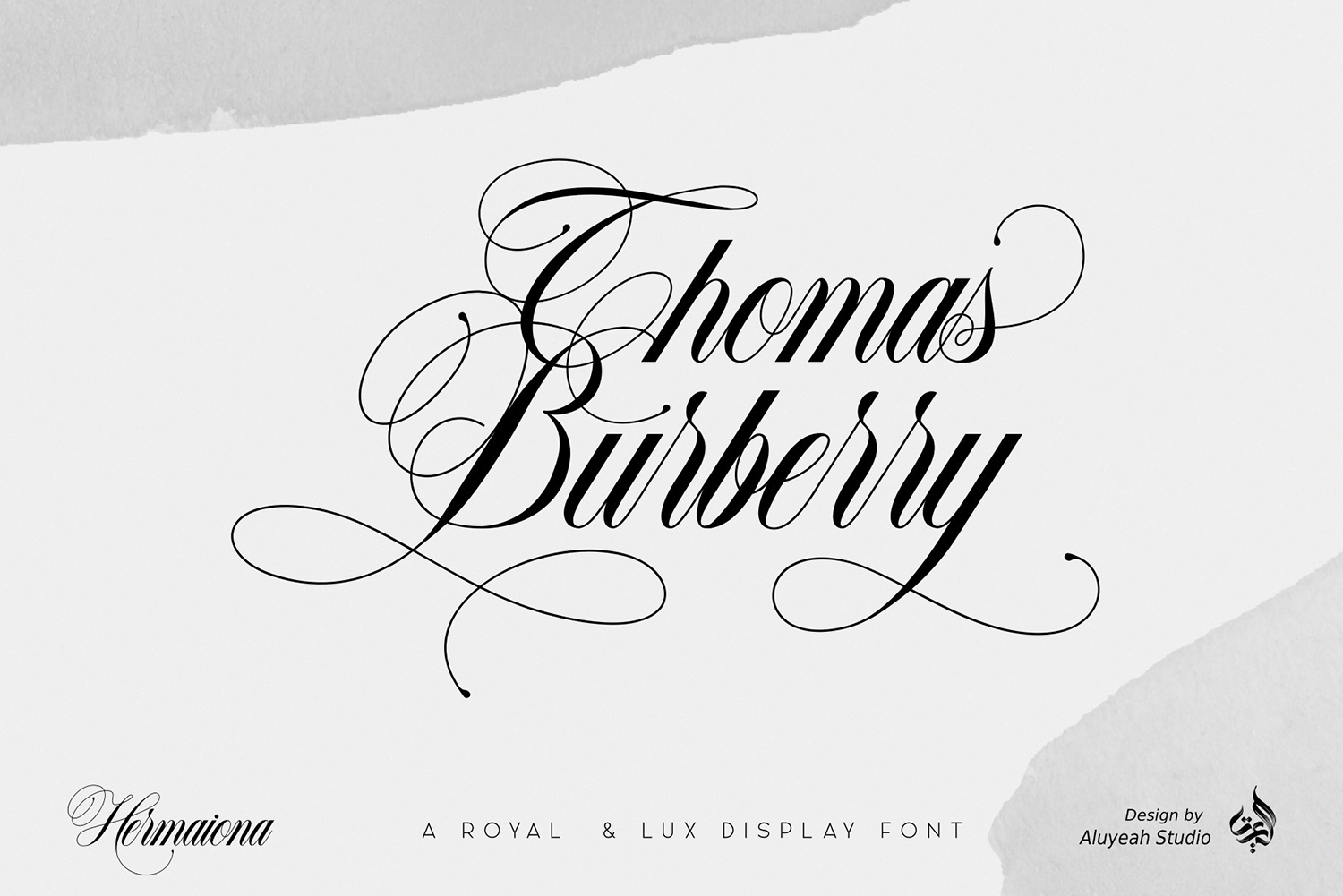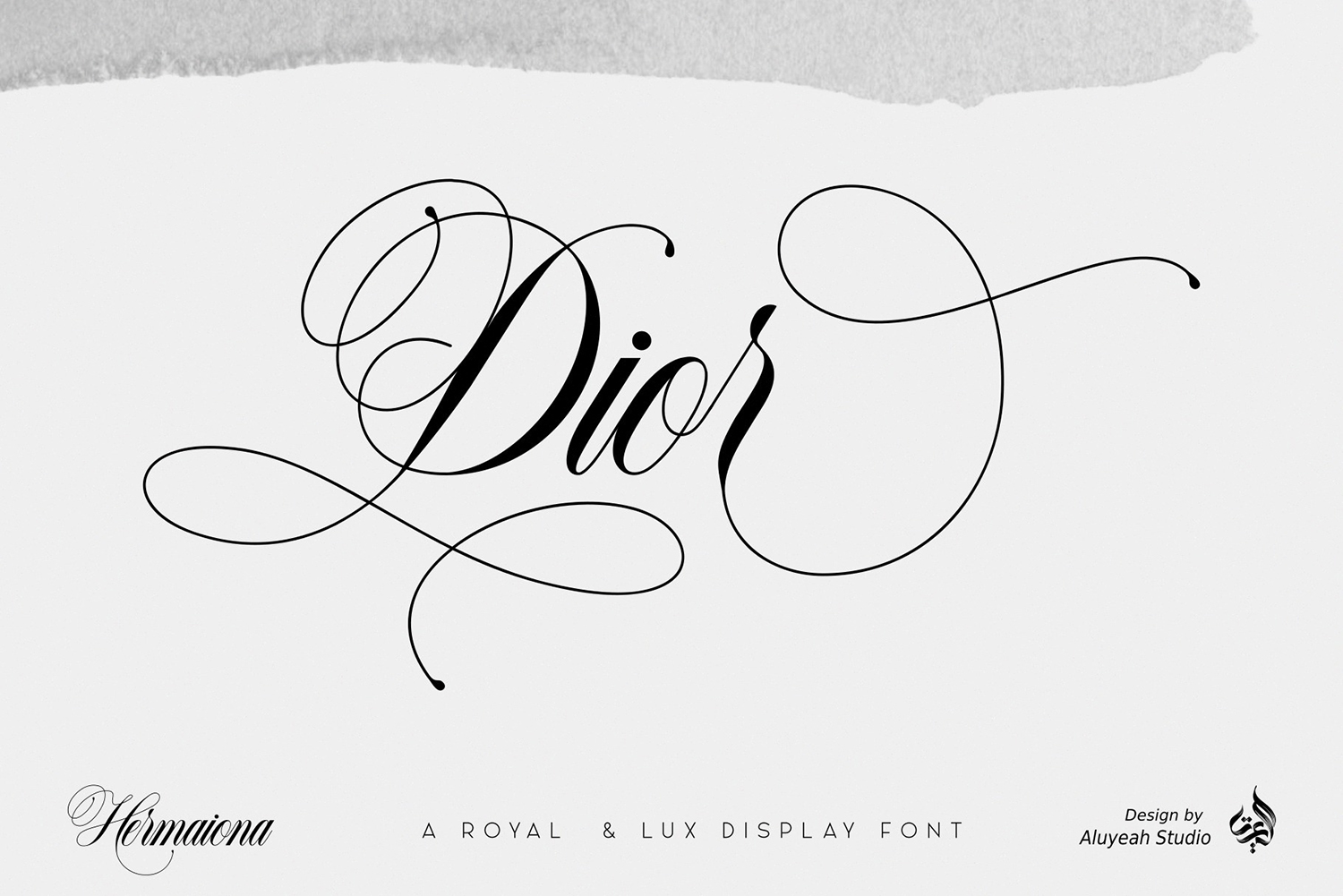
Hermaiona Free Font
Hermaiona Free Font is an interesting, modern typeface that features an elegant calligraphic style and is perfect for a variety of projects that require a script typeface. You can use this font to create memorable posters, wedding invitations, greeting cards, branding, flyers, t-shirt and pillow prints, and more. Improve the quality and increase the popularity of your design projects using this font. If you like it don’t forget to check out the full version.